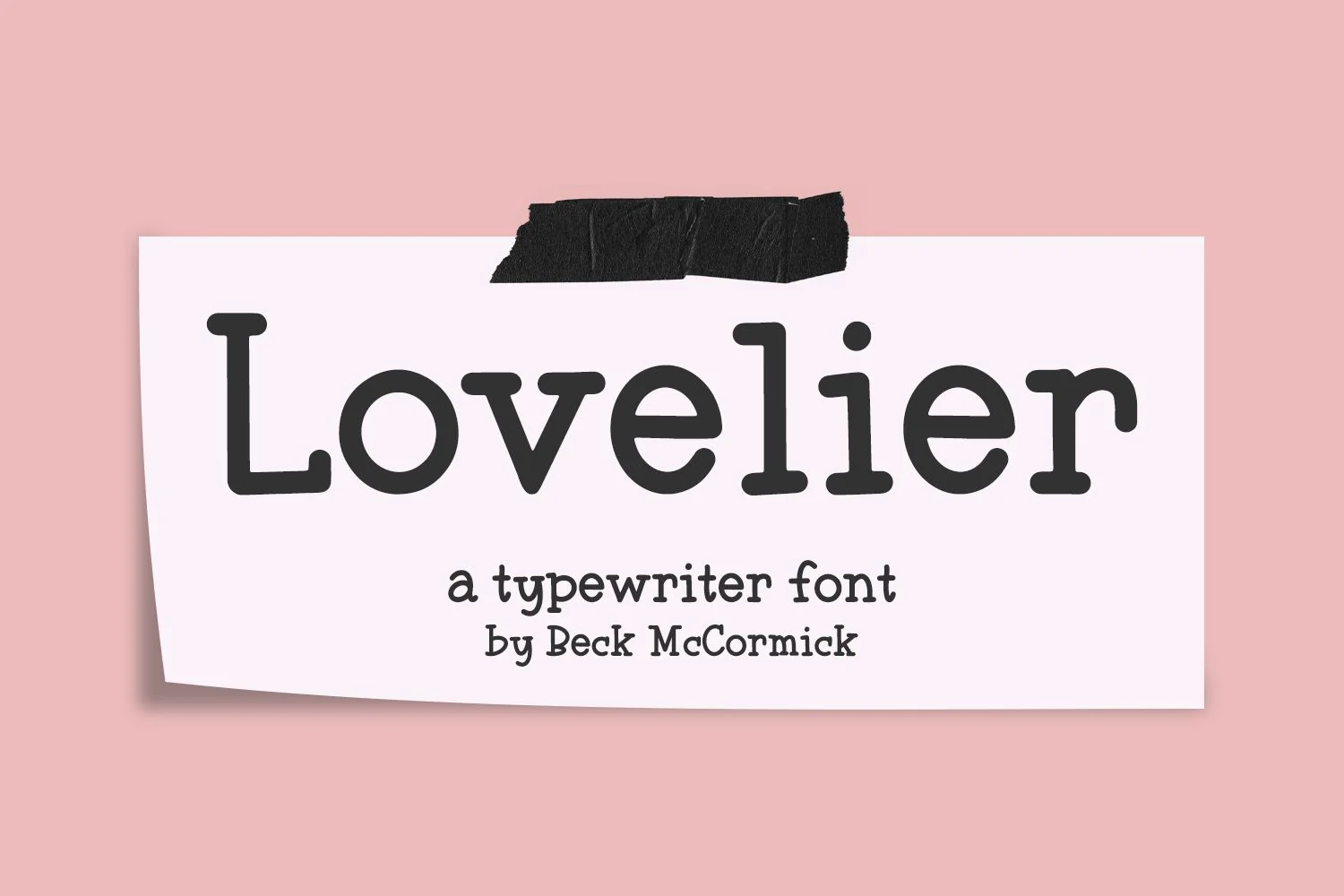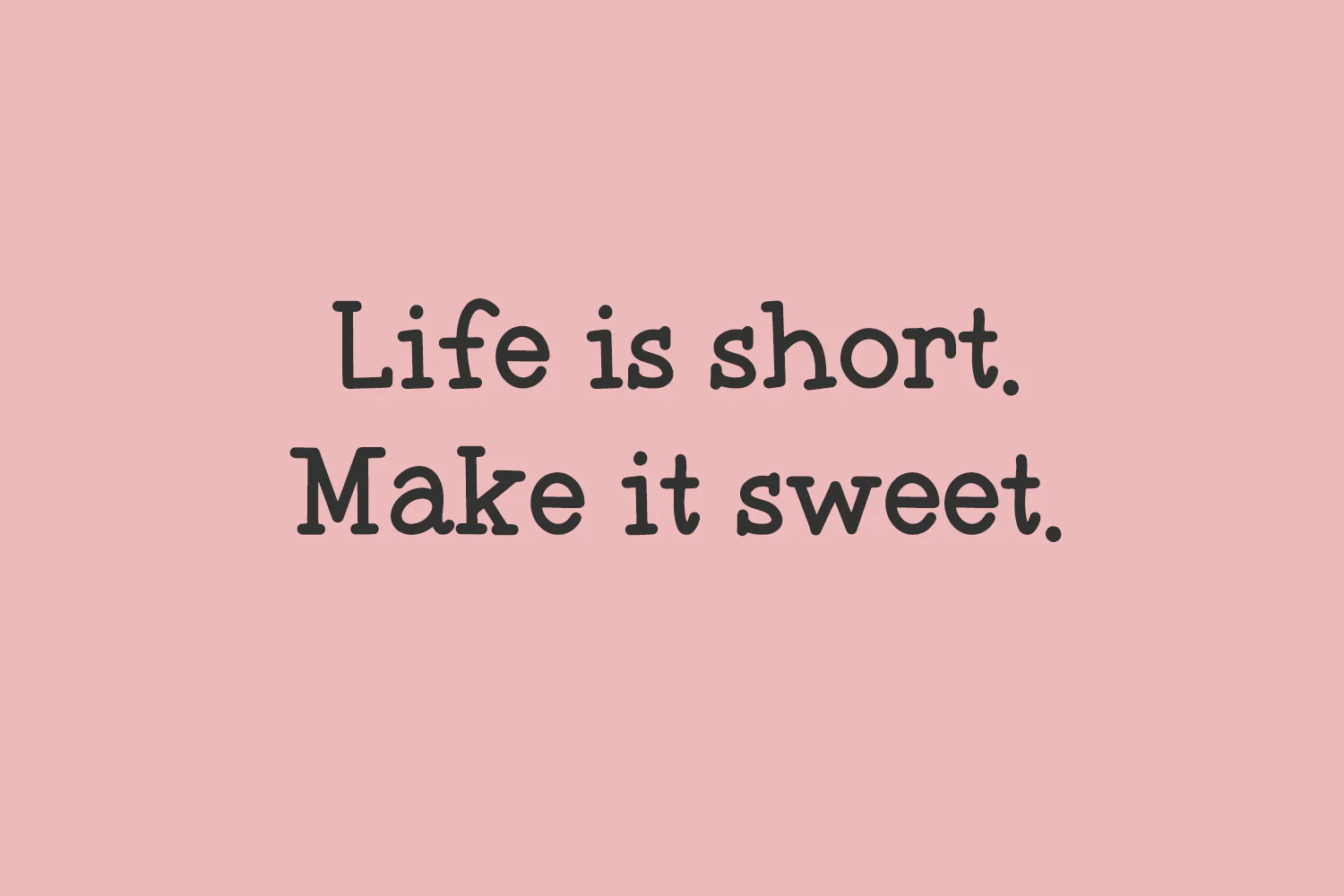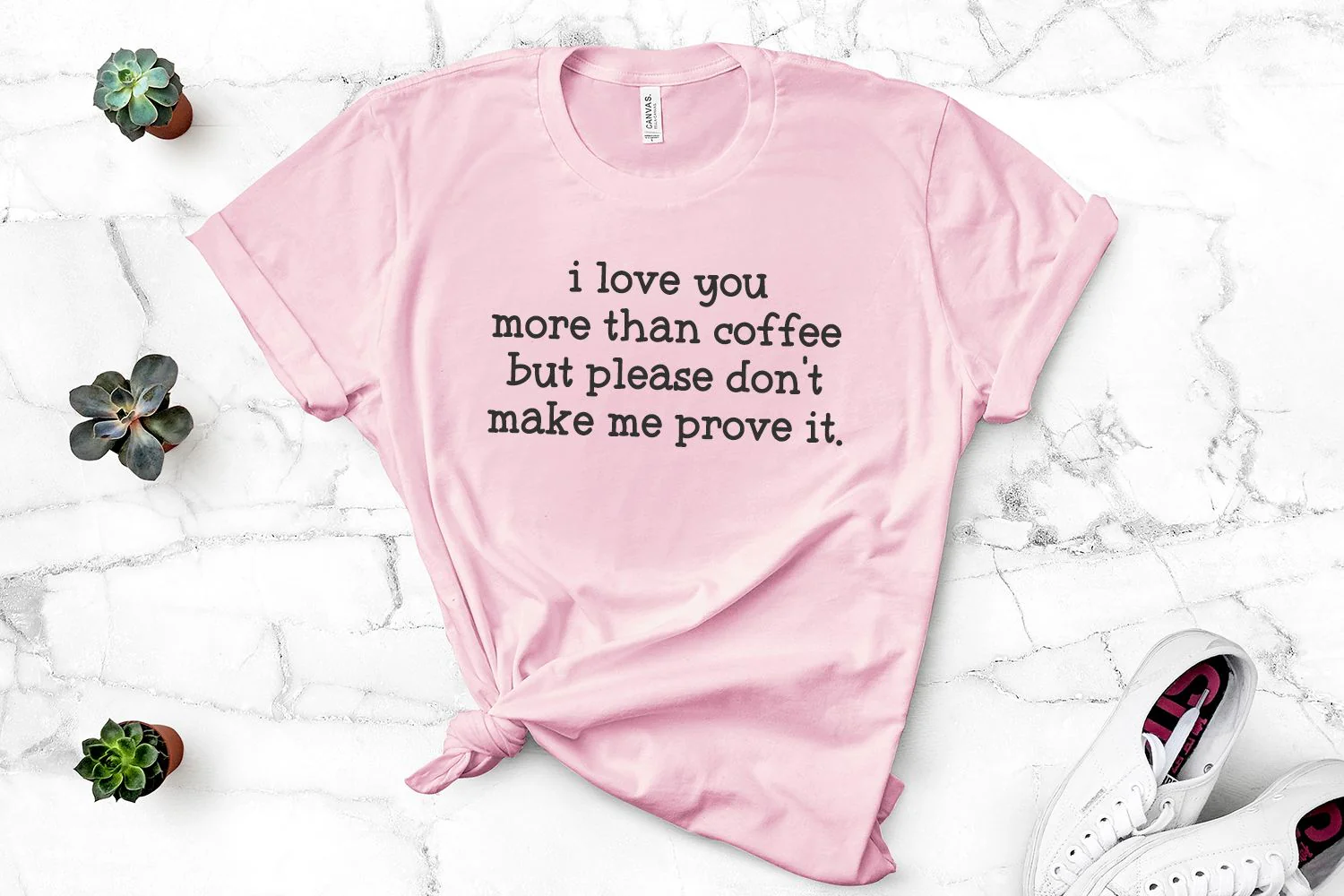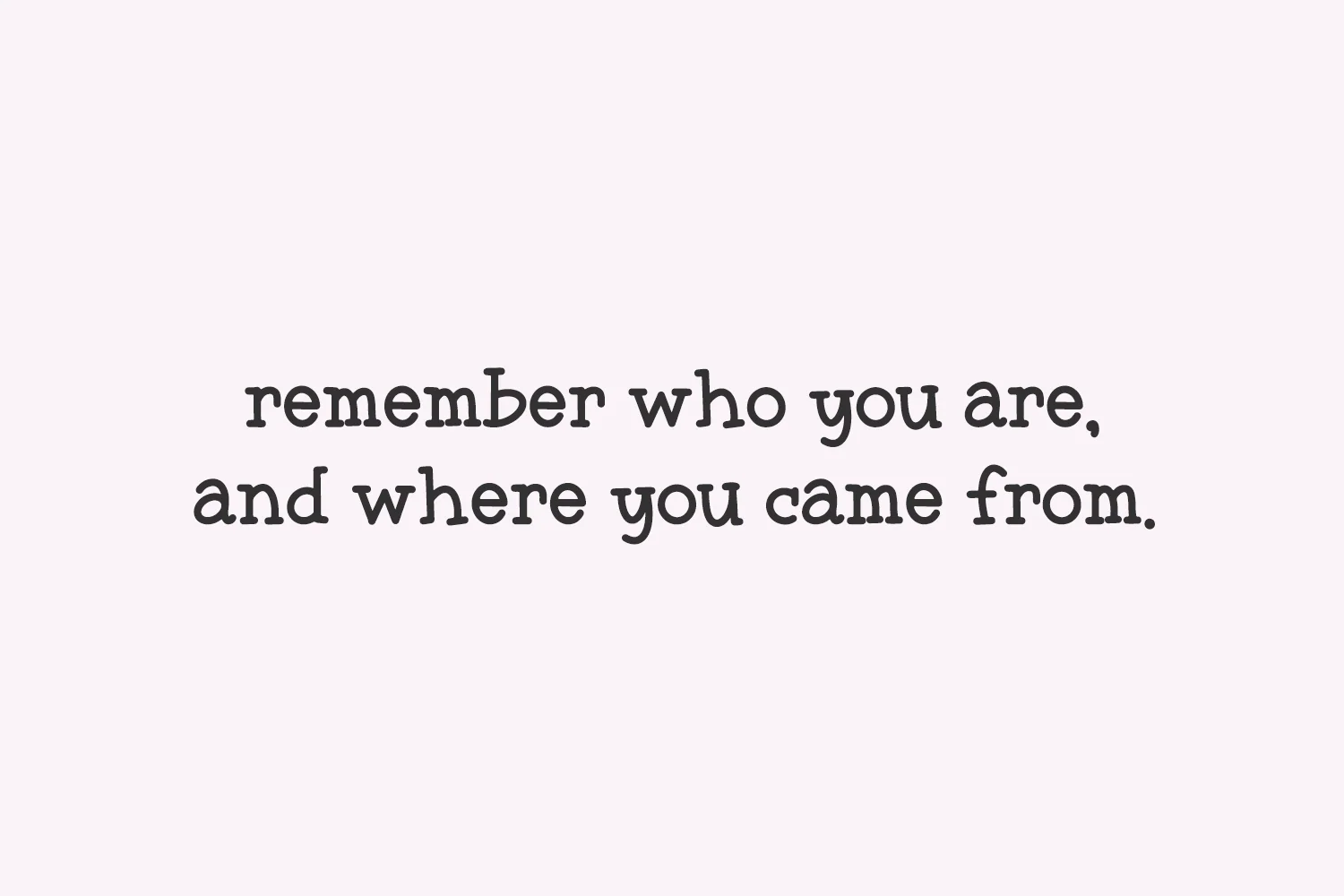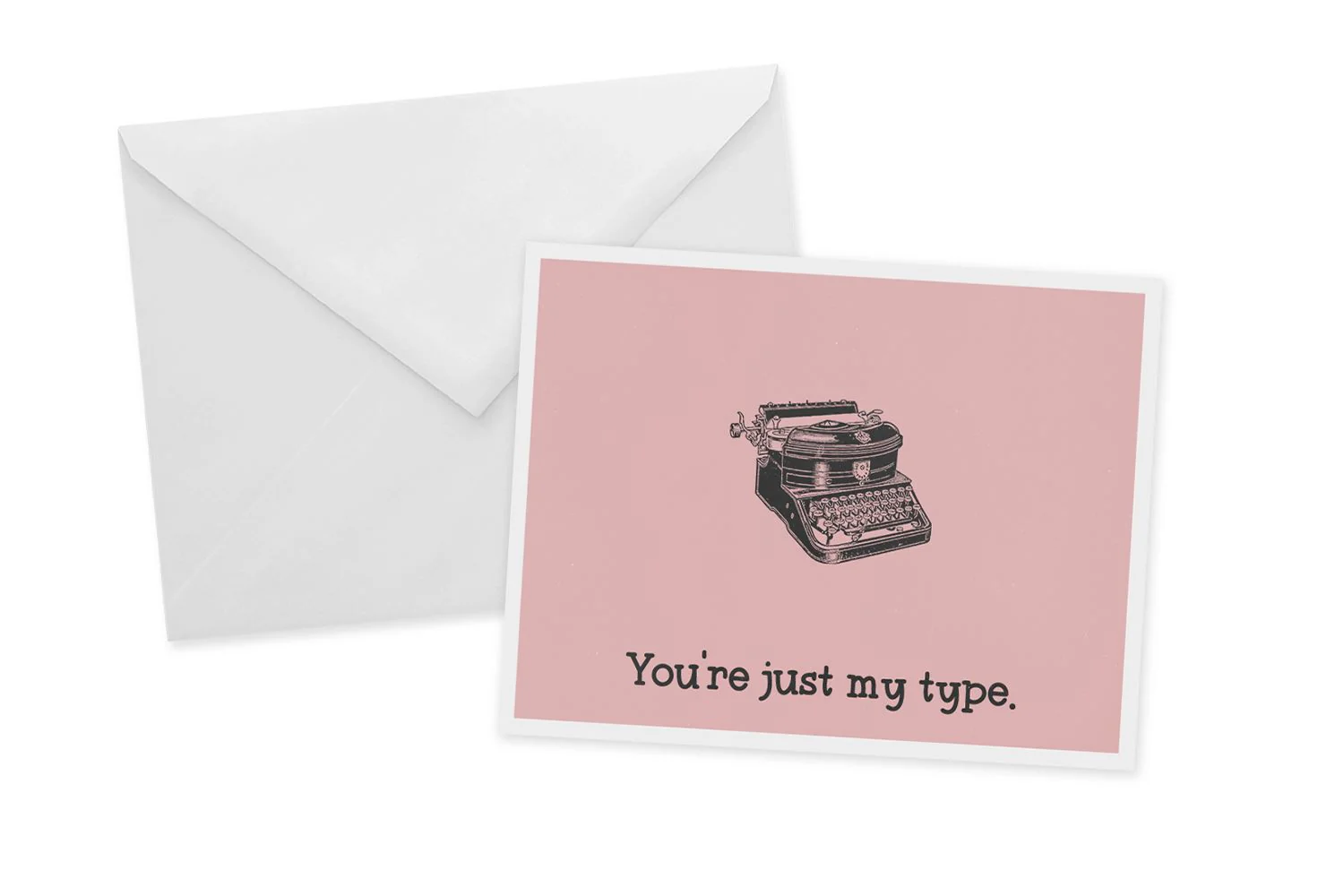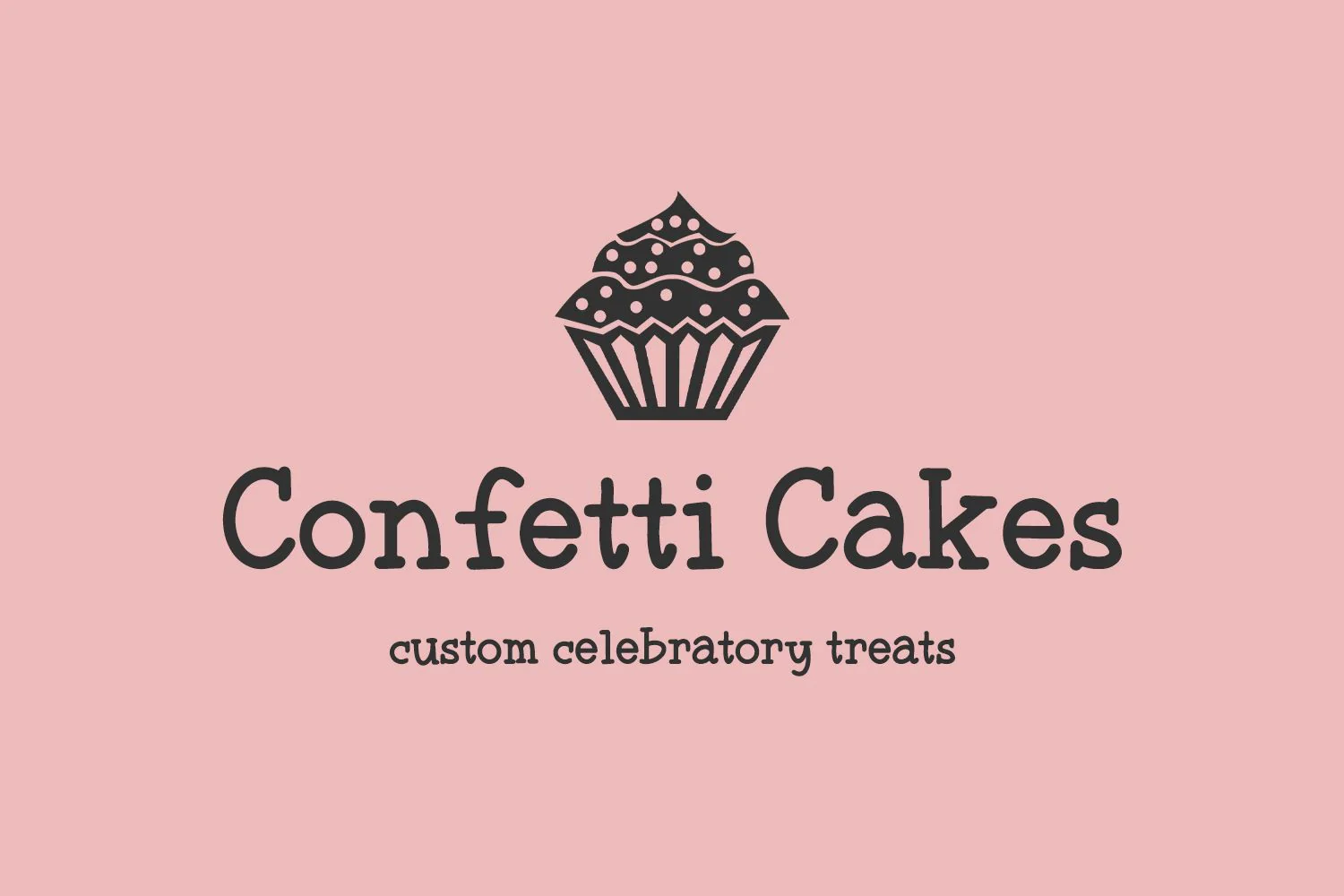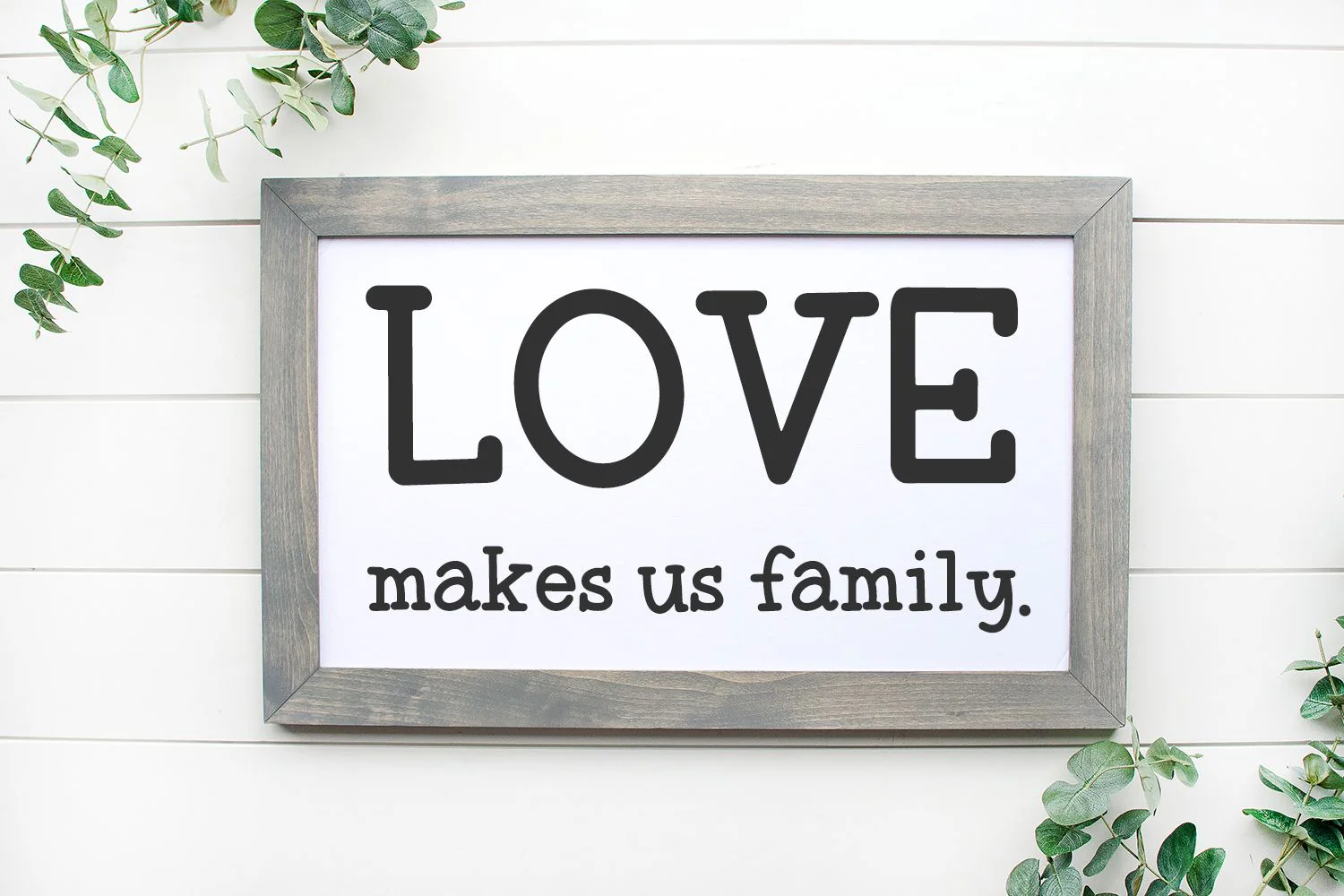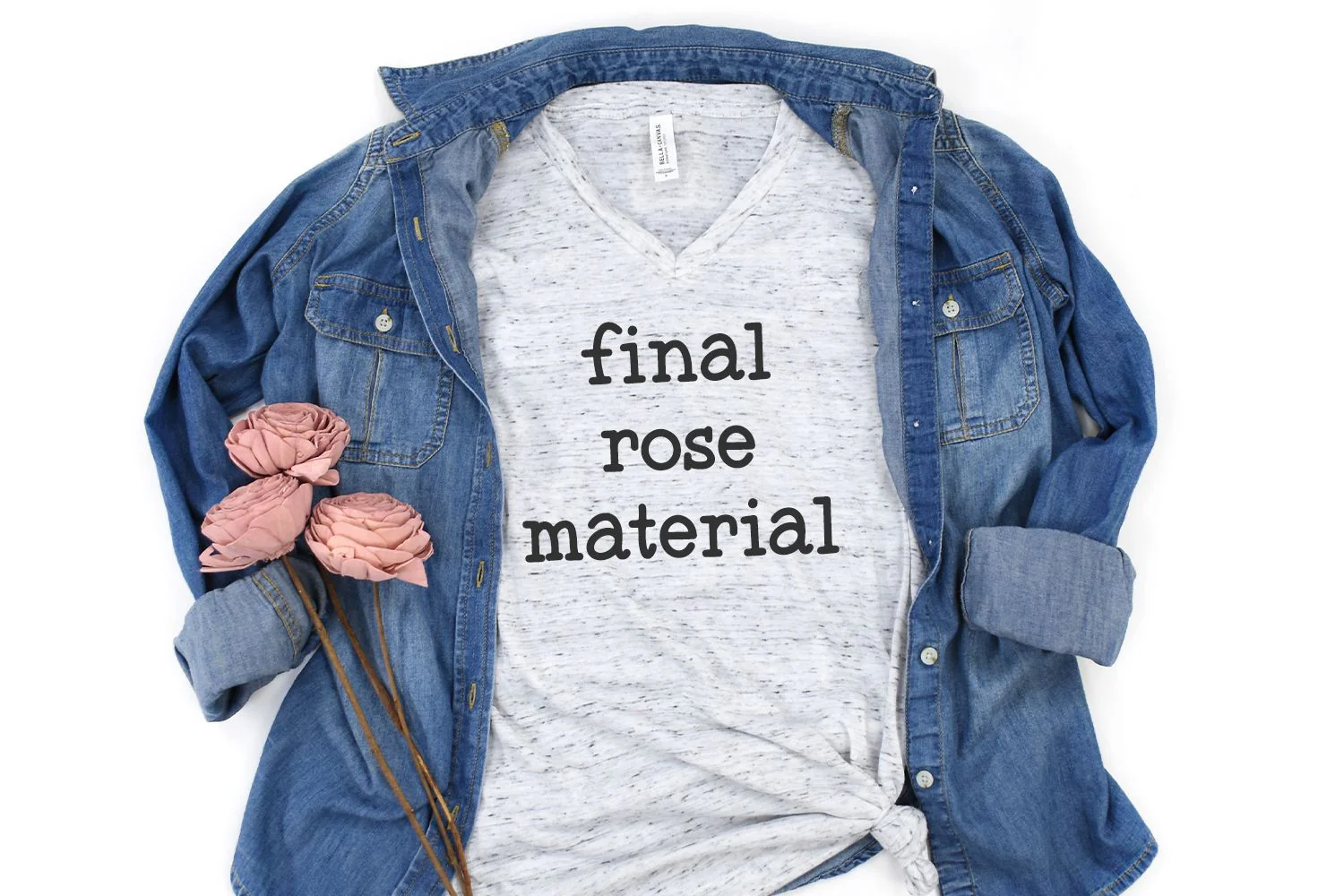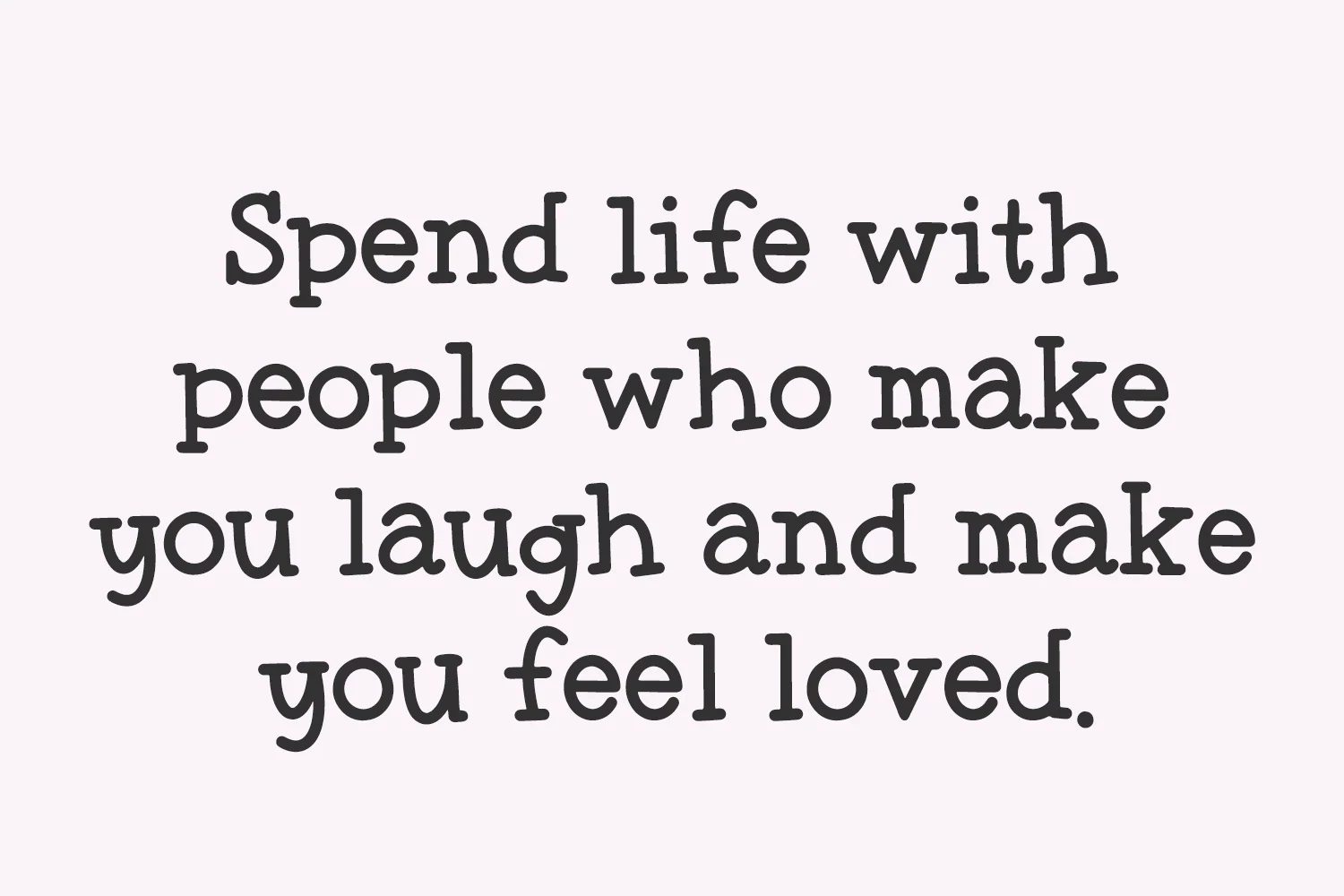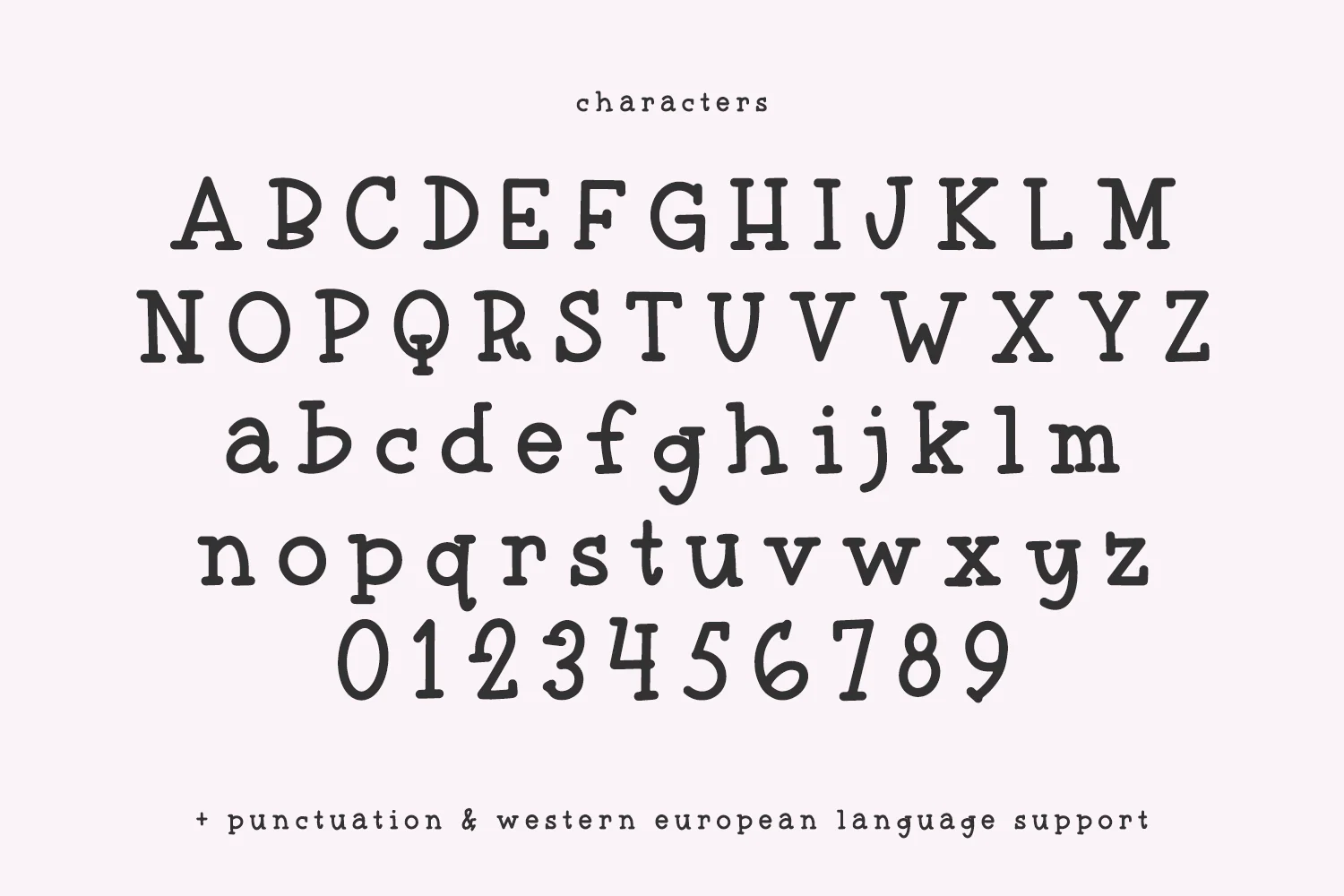
Lovelier Typewriter Serif Font
Say hello to Lovelier, a handlettered typewriter style font. Lovelier is cute, quirky, and clean.
Lovelier is best for:
- feminine, crafty projects with your Cricut or Silhouette machine, or your SVG design business
- farmhouse decor and crafts
- logos + branding
- website design + website accents, blog design
- clean print design, like magazines + flyers
- header elements that need handwritten touch
- feminine graphic tee shirt design & other apparel
Say hello to Lovelier, a handlettered typewriter style font. Lovelier is cute, quirky, and clean.
Lovelier is best for:
- feminine, crafty projects with your Cricut or Silhouette machine, or your SVG design business
- farmhouse decor and crafts
- logos + branding
- website design + website accents, blog design
- clean print design, like magazines + flyers
- header elements that need handwritten touch
- feminine graphic tee shirt design & other apparel